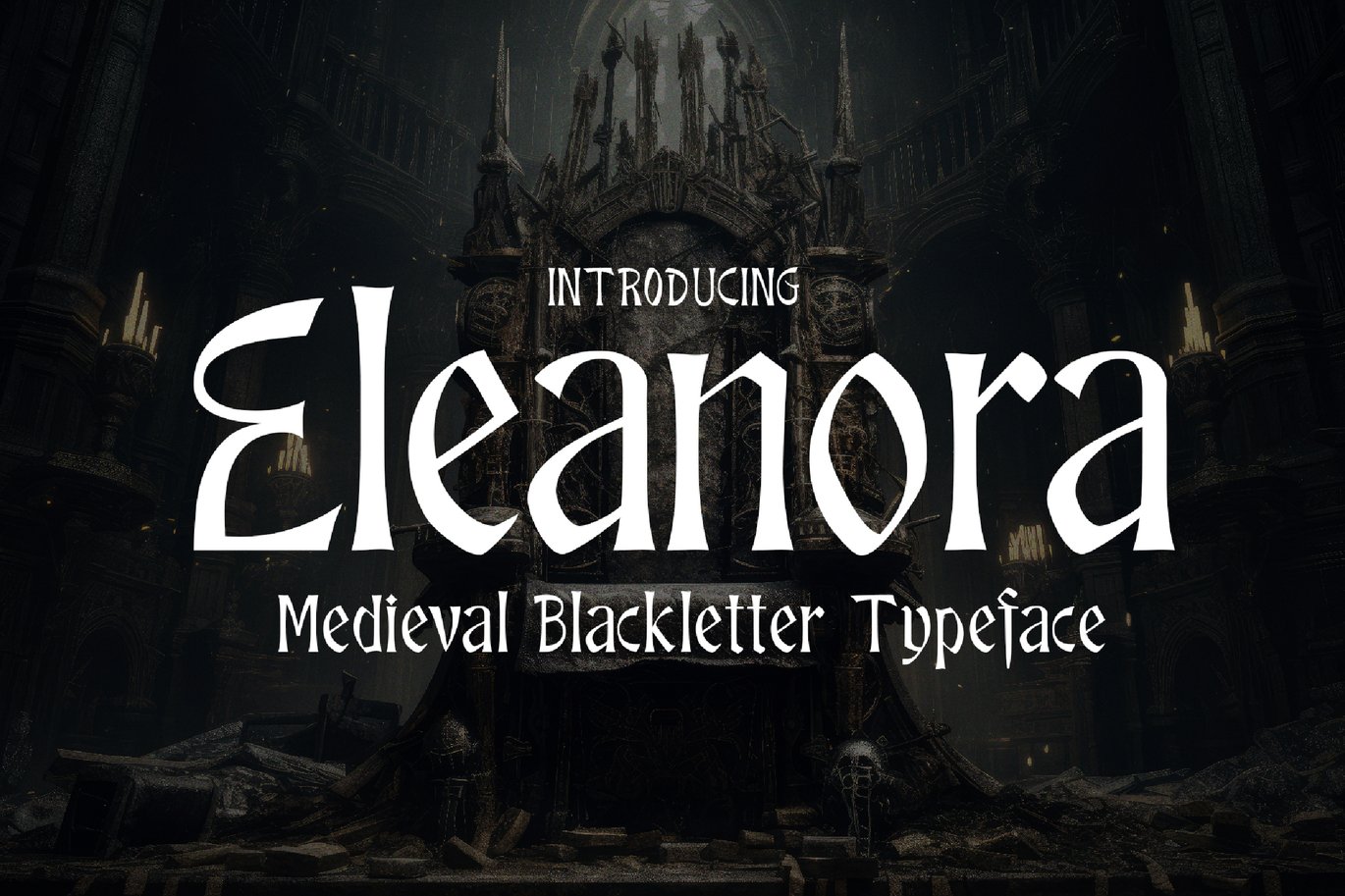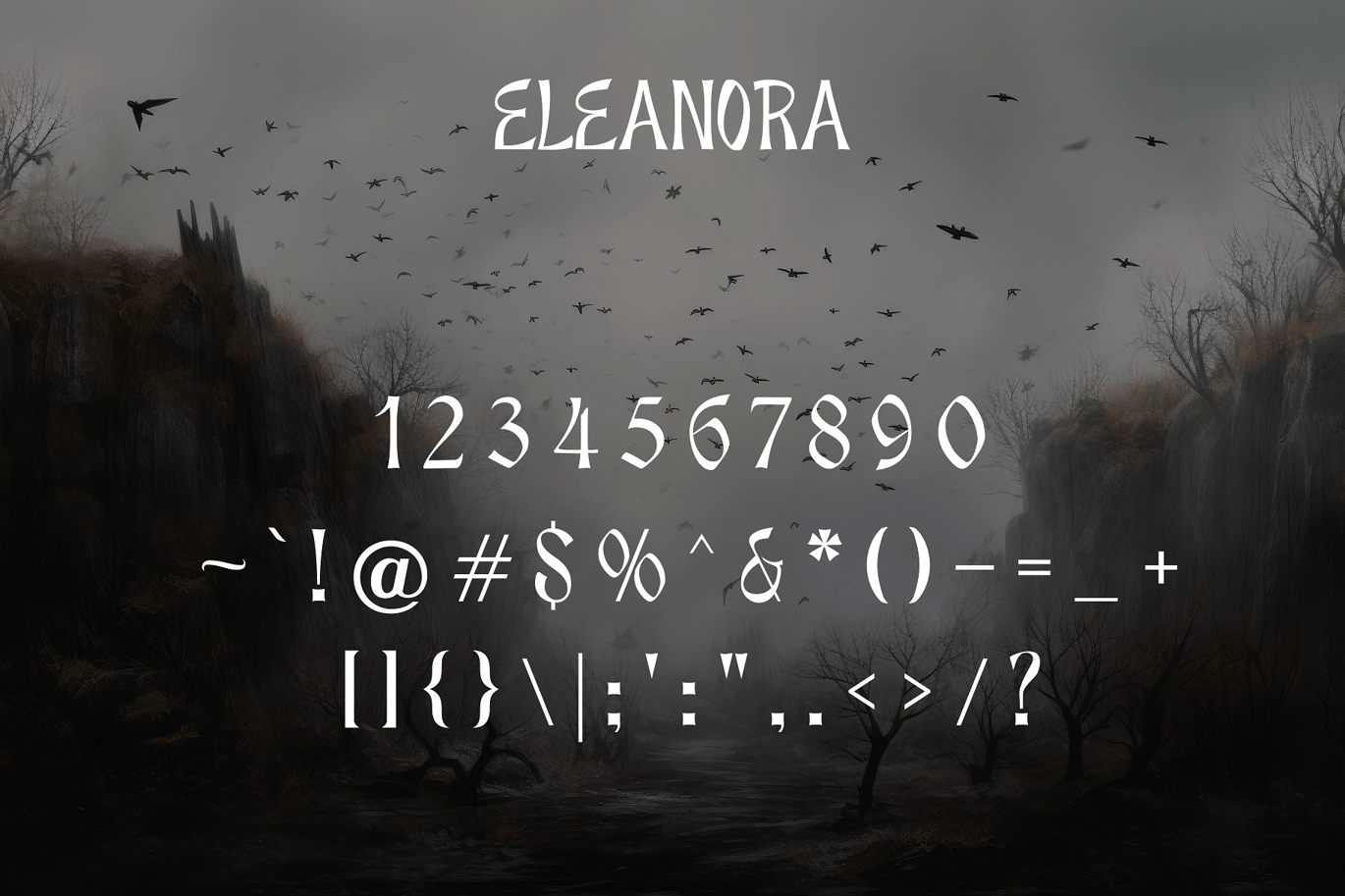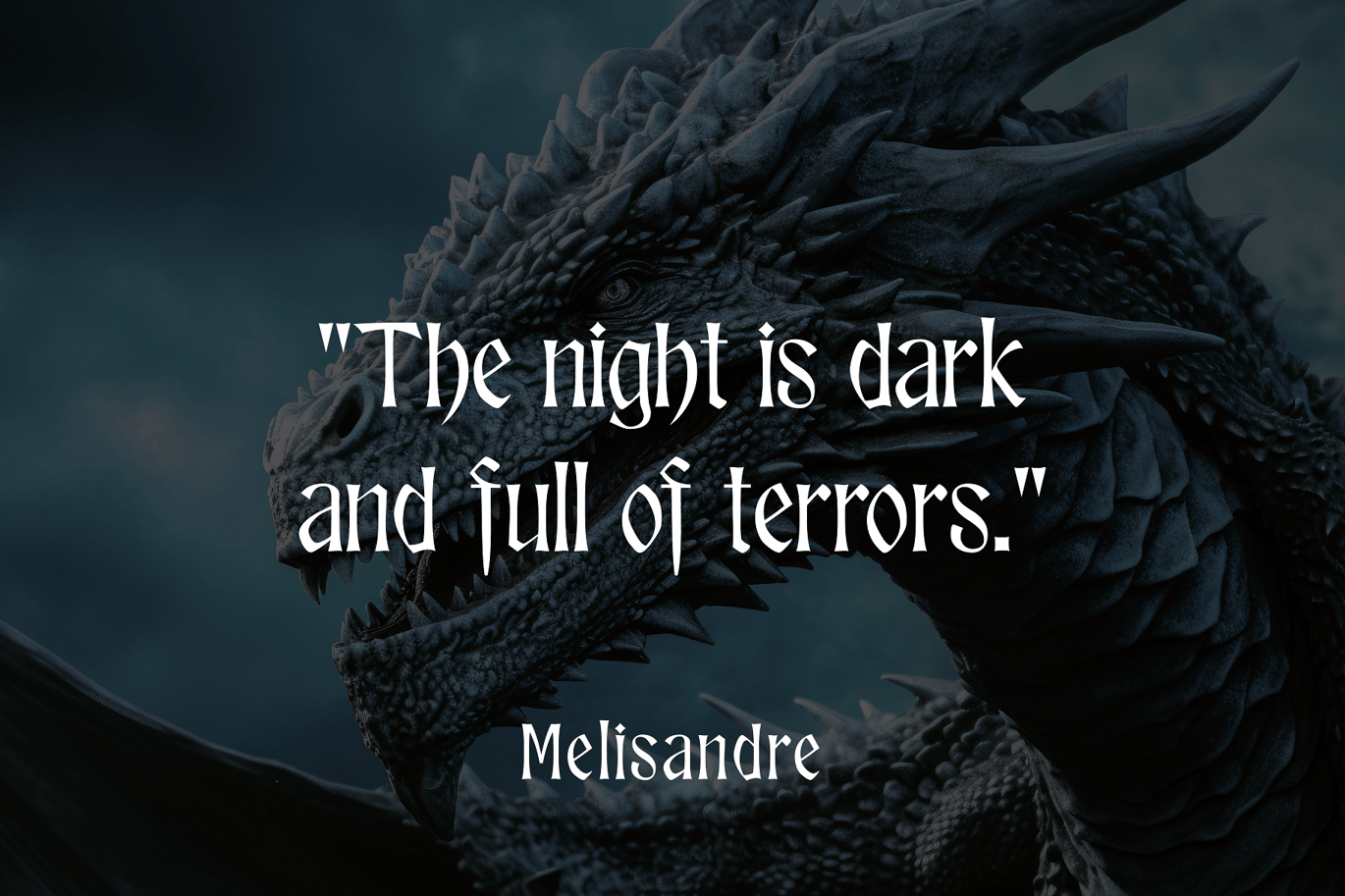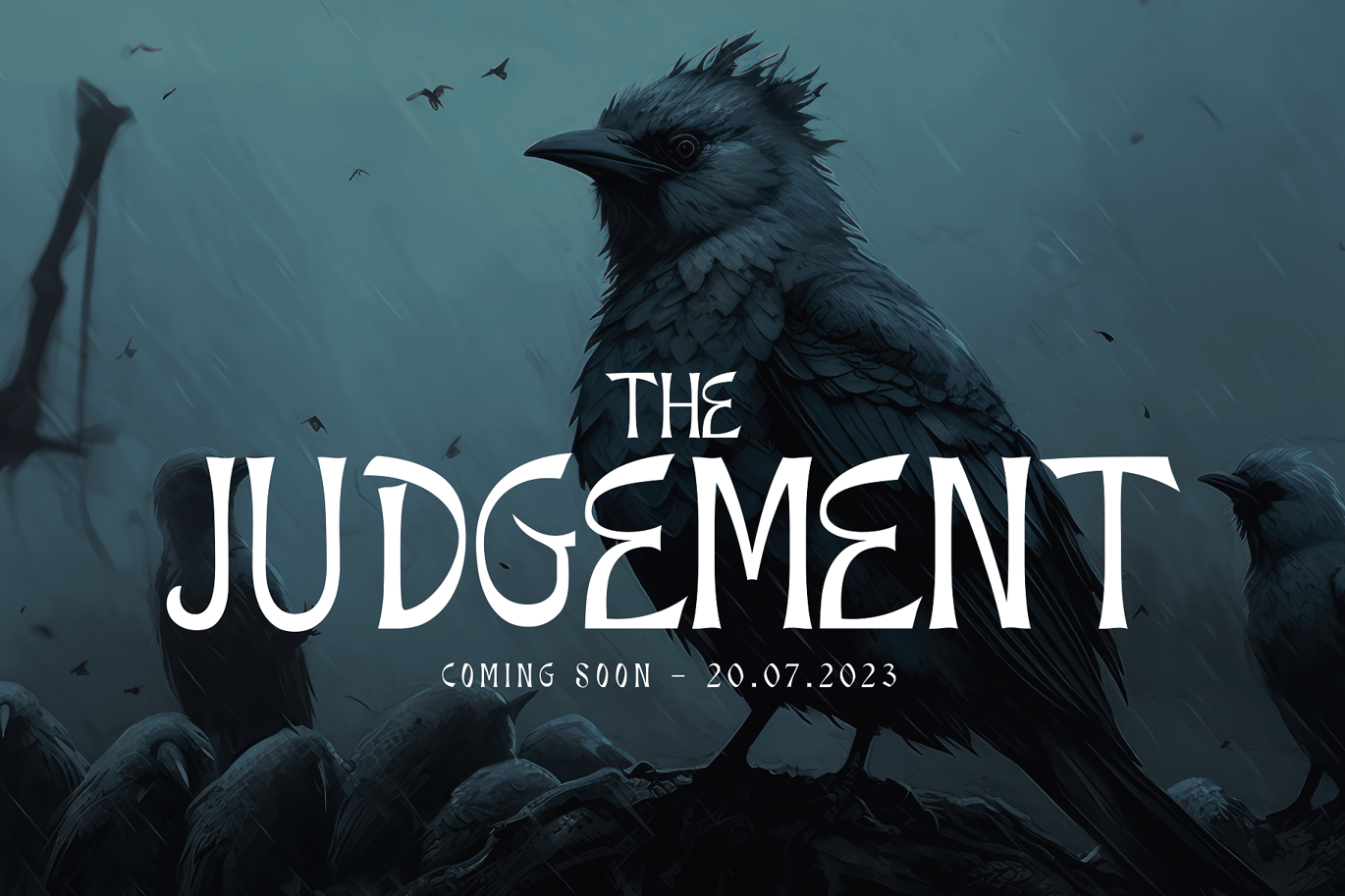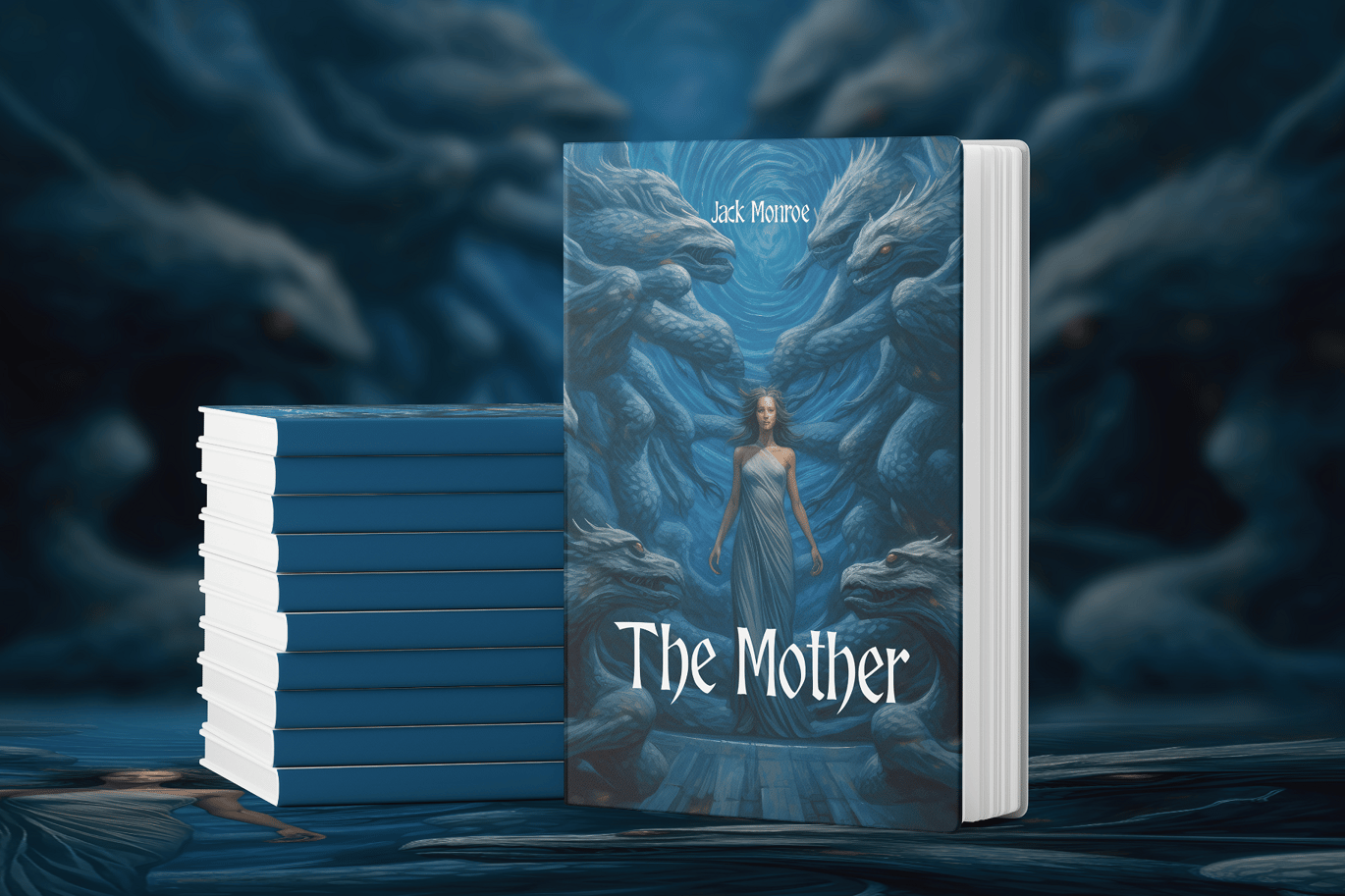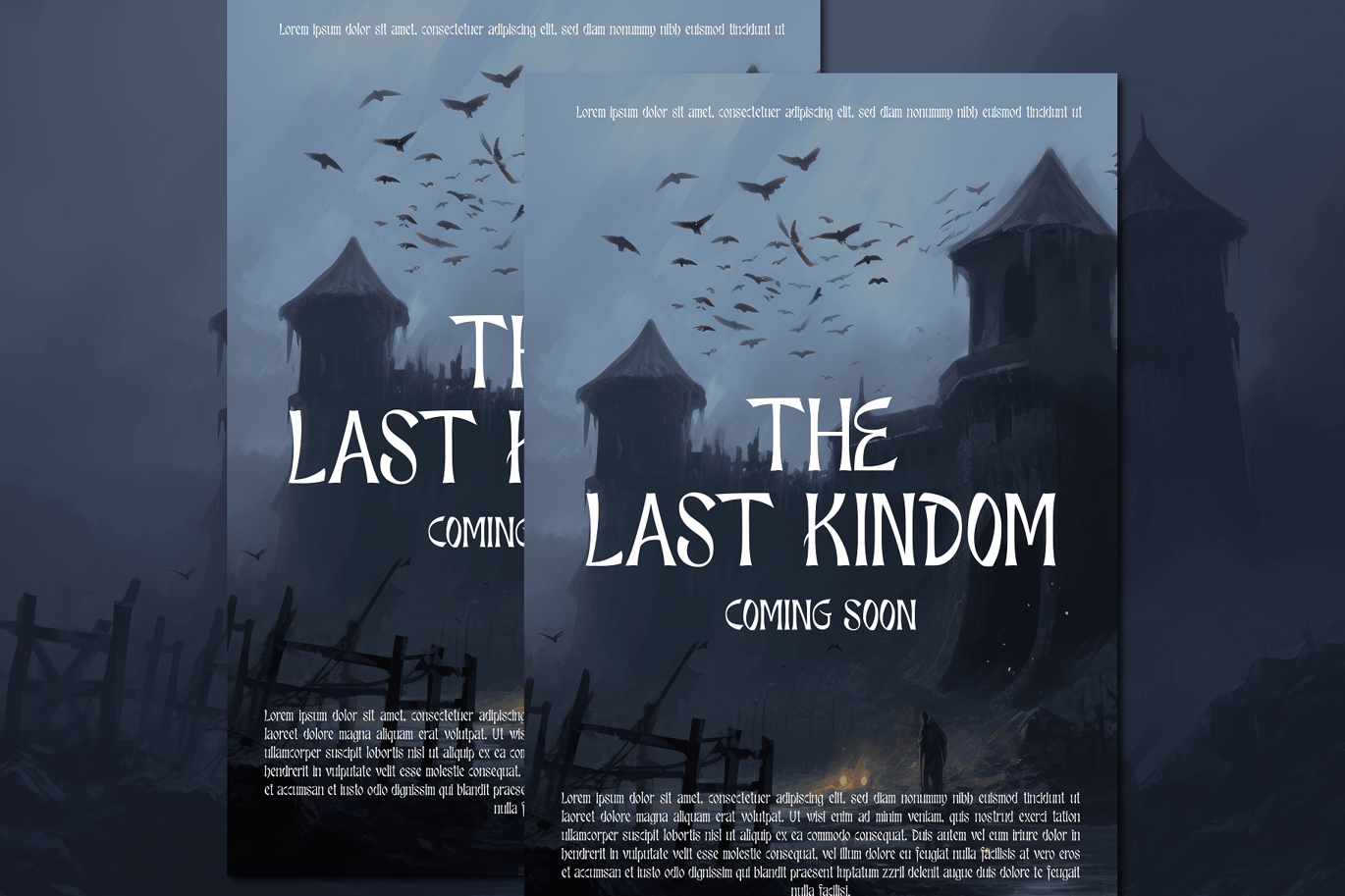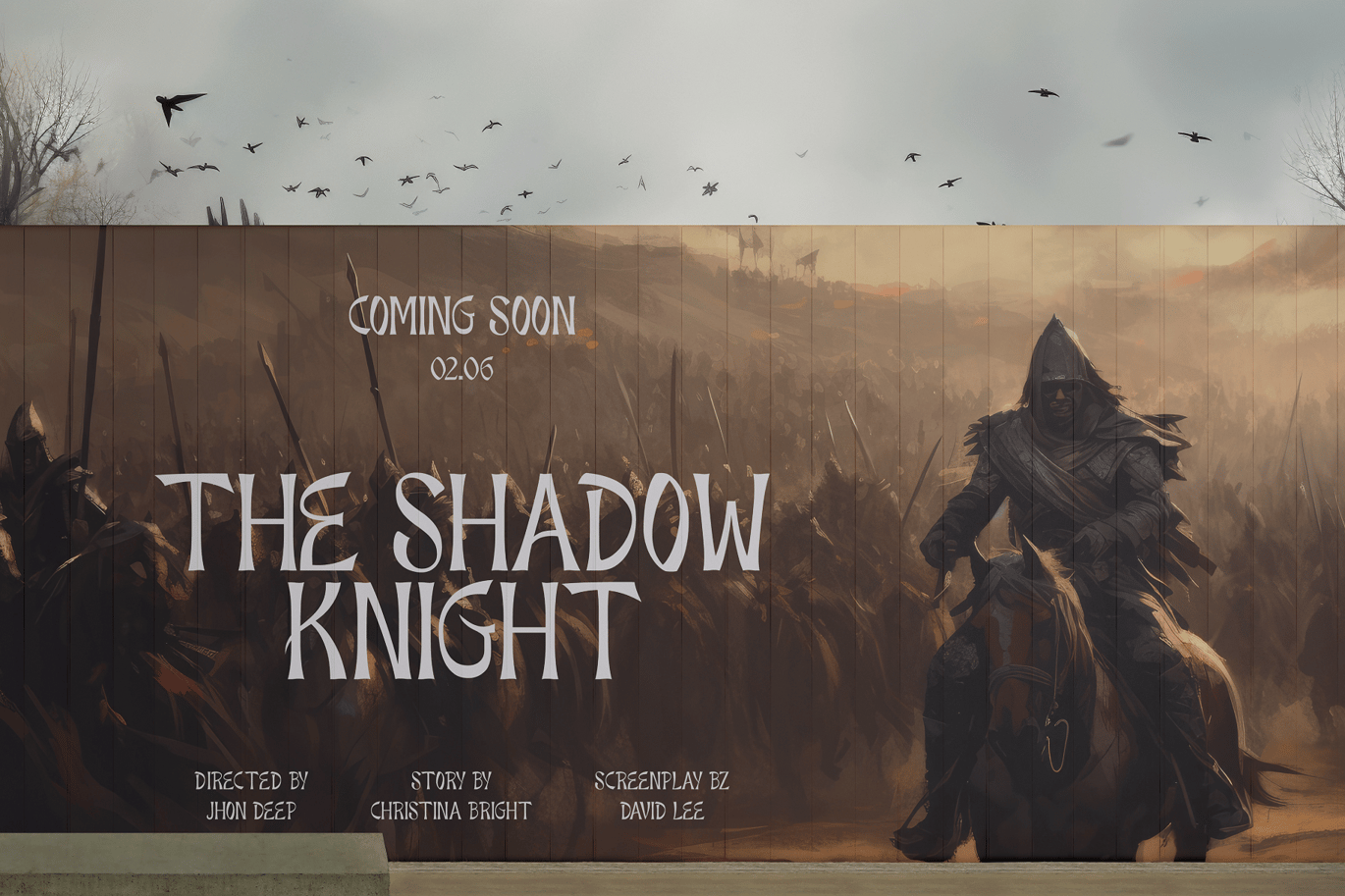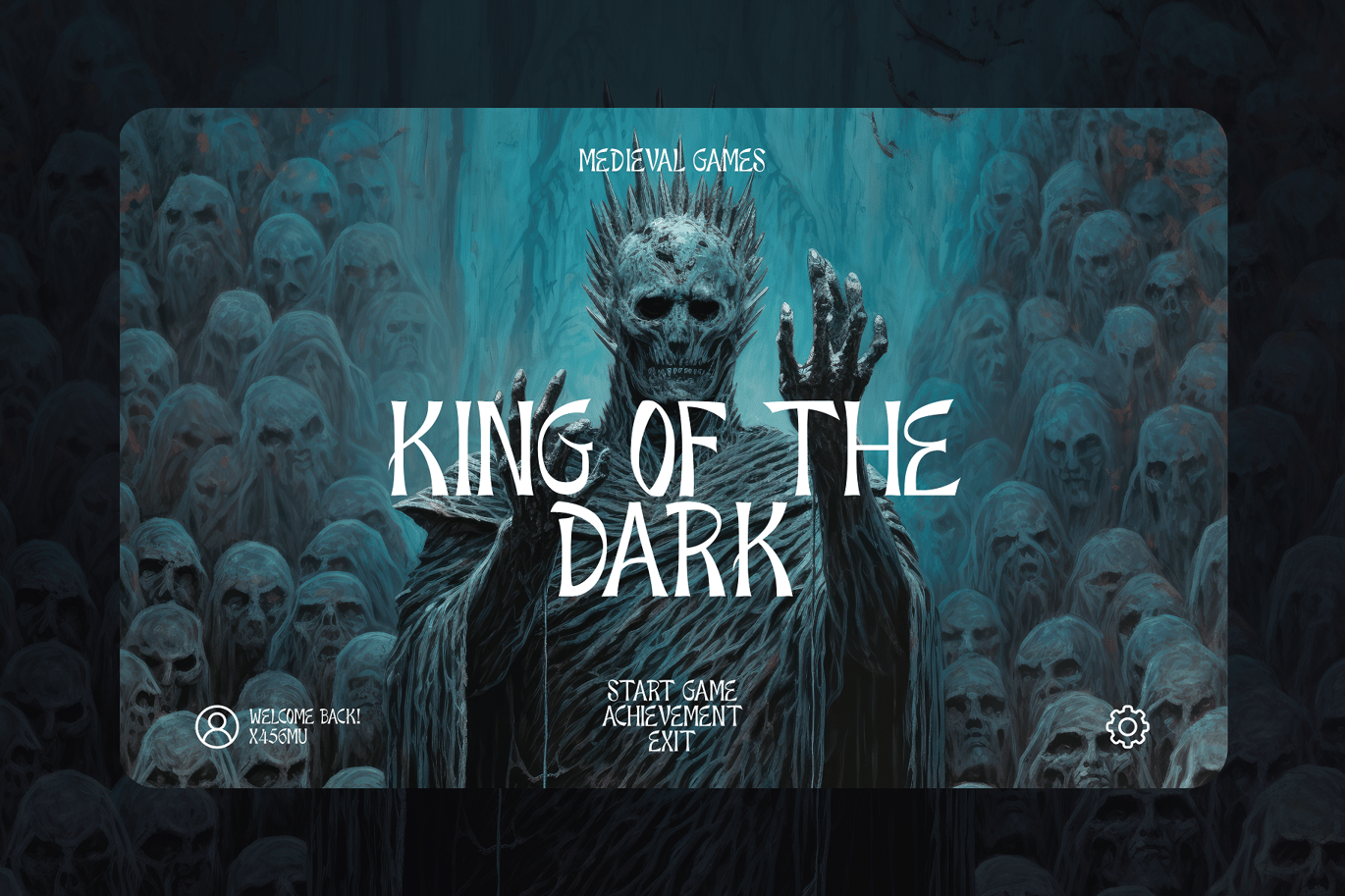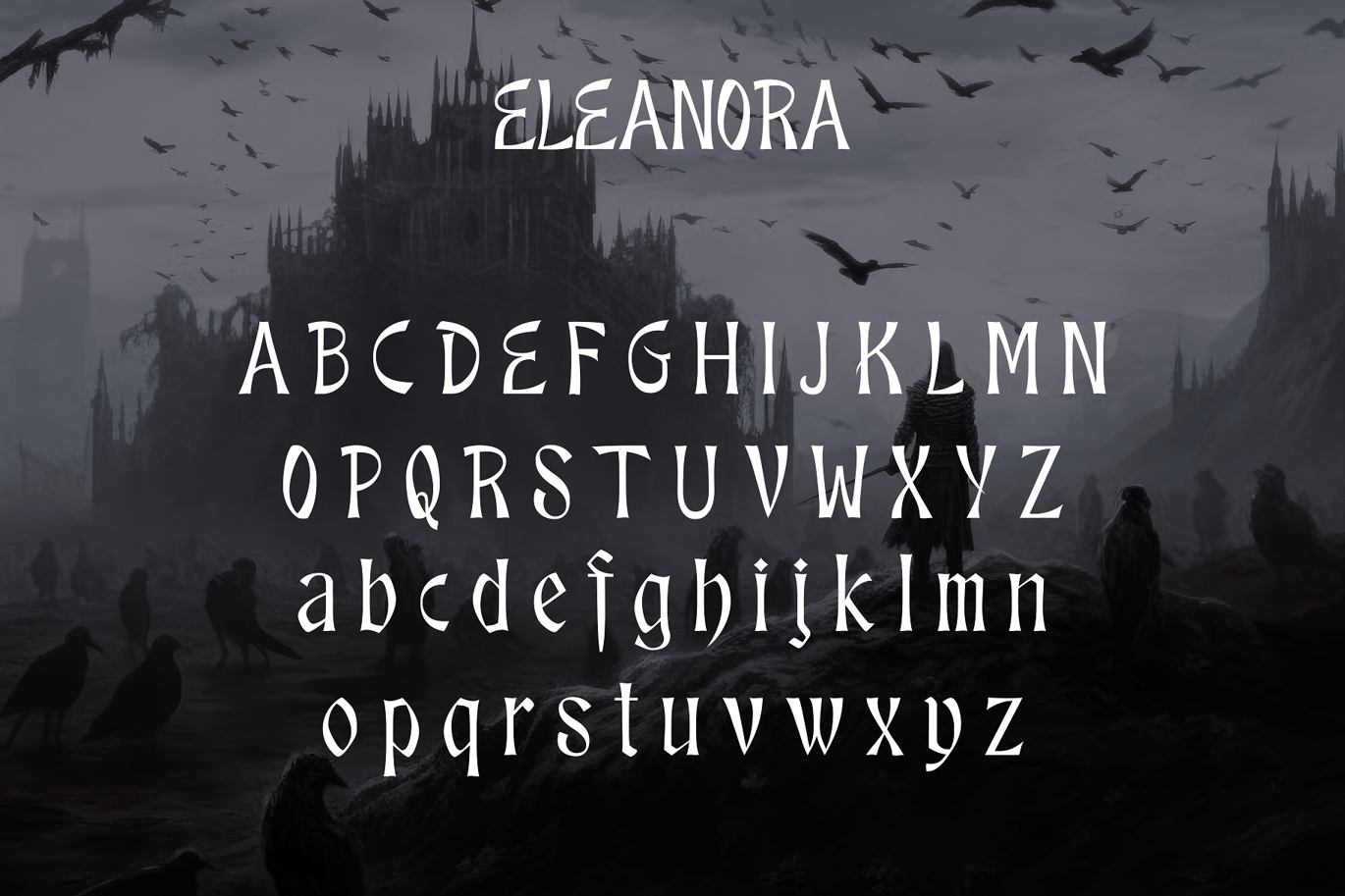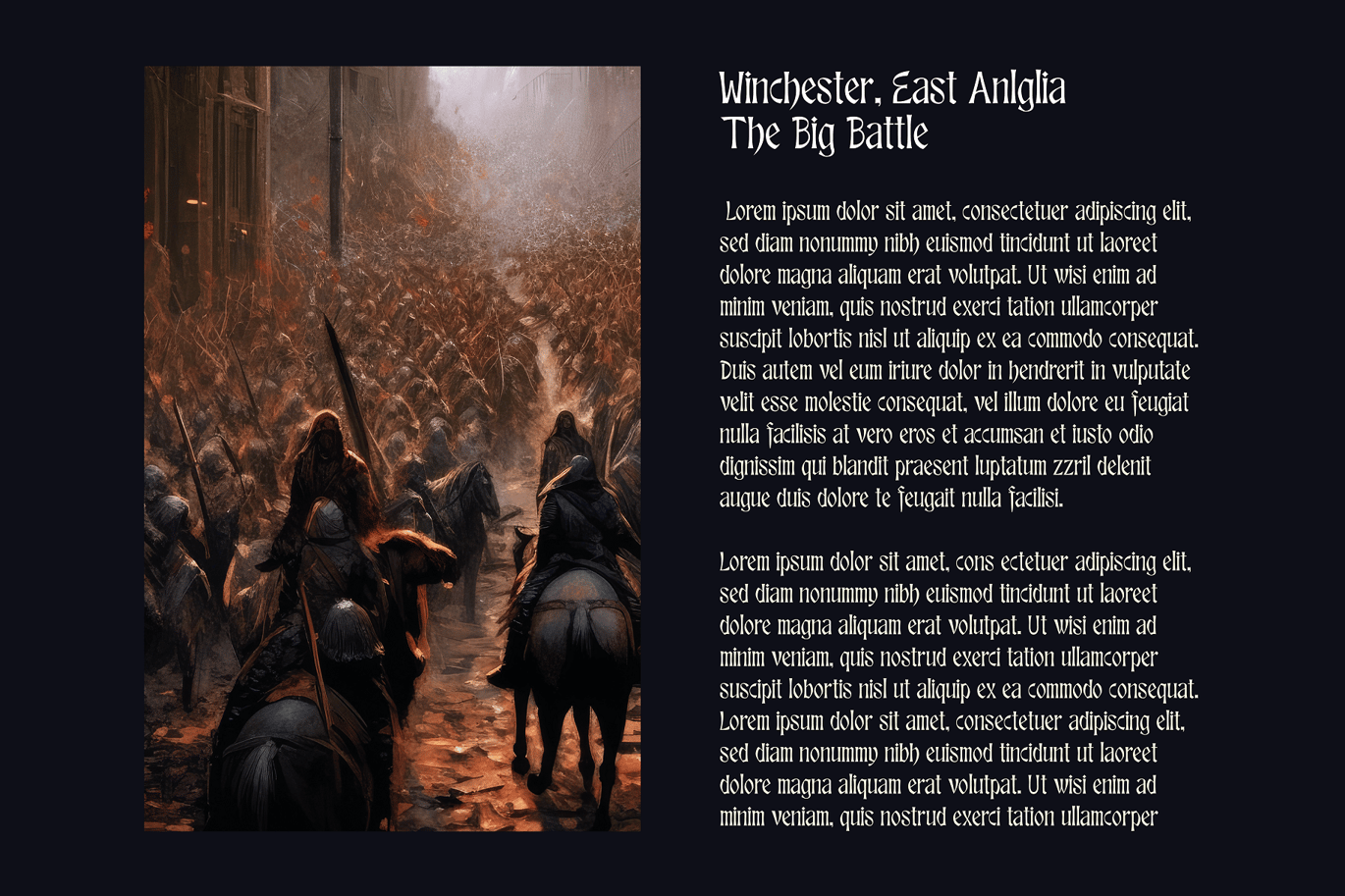
Eloanora – Medieval Blackletter Font
Unlock the mystical world of medieval manuscripts with Eleanora, the font that brings the captivating beauty of blackletter to life! Prepare to be spellbound by the intricate details and timeless elegance of this extraordinary typeface.
Eleanora takes you on a journey to a bygone era, where knights roamed the land and tales of chivalry were written in illuminated manuscripts. Its ornate and elaborate letterforms are a testament to the craftsmanship of the past, infusing your designs with a sense of regal grandeur.
Whether you’re designing invitations for a medieval-themed event, creating fantasy book covers, or adding a touch of medieval mystique to your graphic designs, Eleanora is the key to unlocking an enchanting visual experience.
Don’t settle for ordinary fonts when you can adorn your creations with the majesty of Eleanora. Immerse yourself in the medieval world and let your imagination soar with this exquisite blackletter typeface!